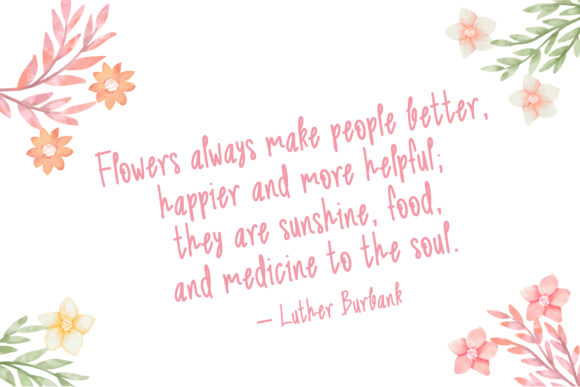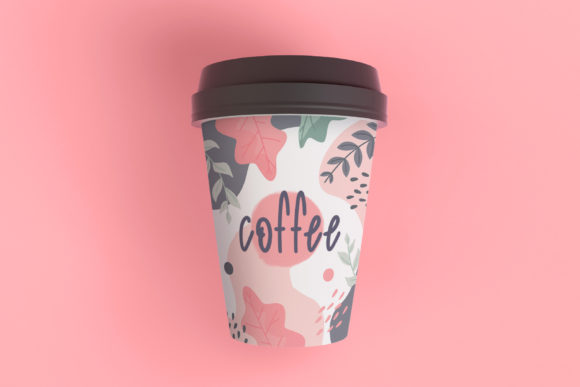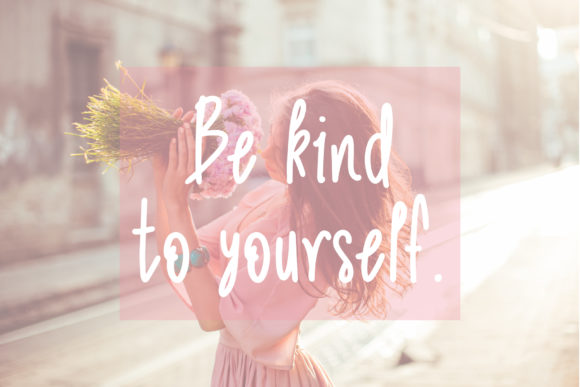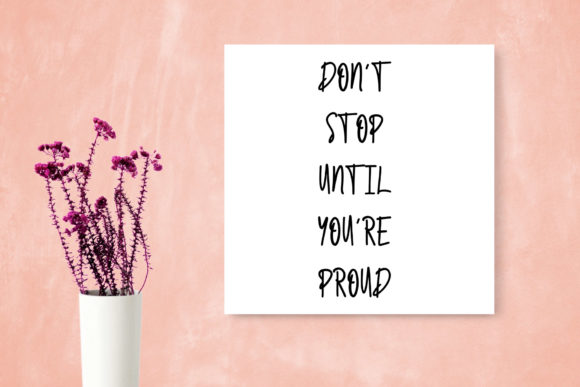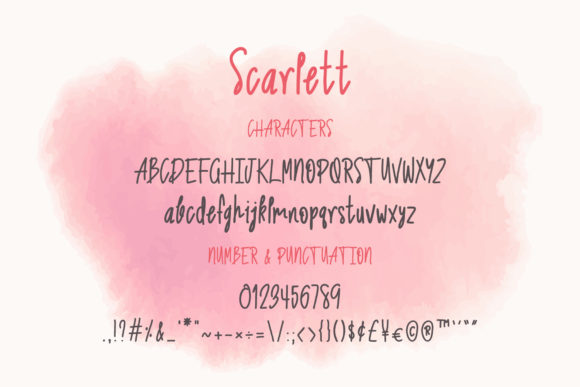
Scarlett Font
About Scarlett Font
Scarlett is a cute and friendly handwritten font. Clean and a little bit quirky, this font is the perfect fit for all of your logos, branding, social media, and crafty DIY projects.